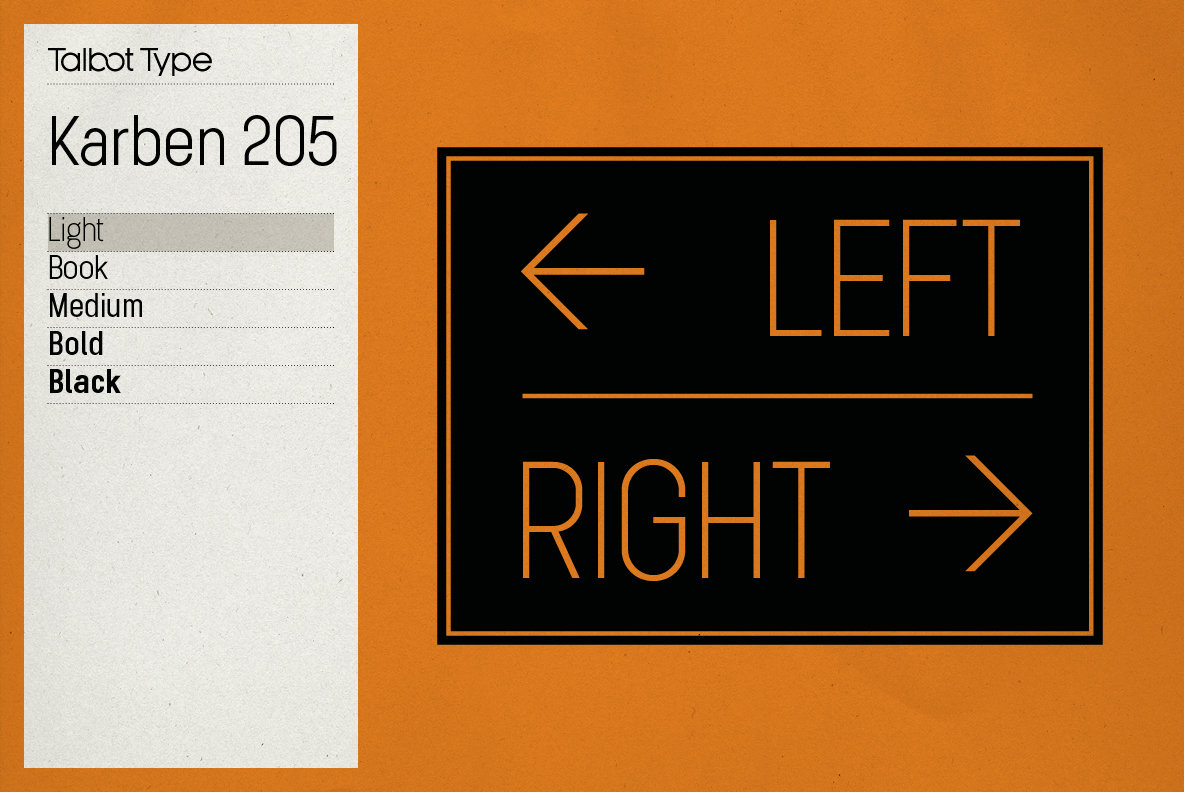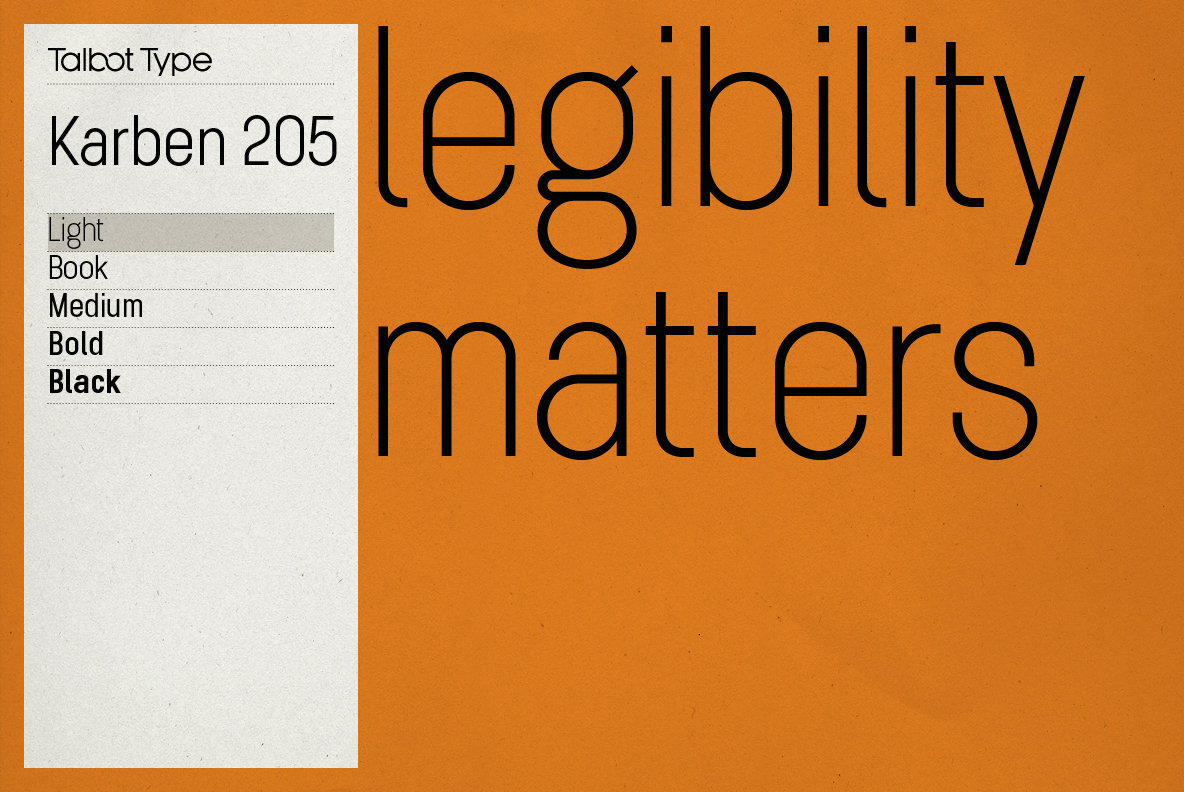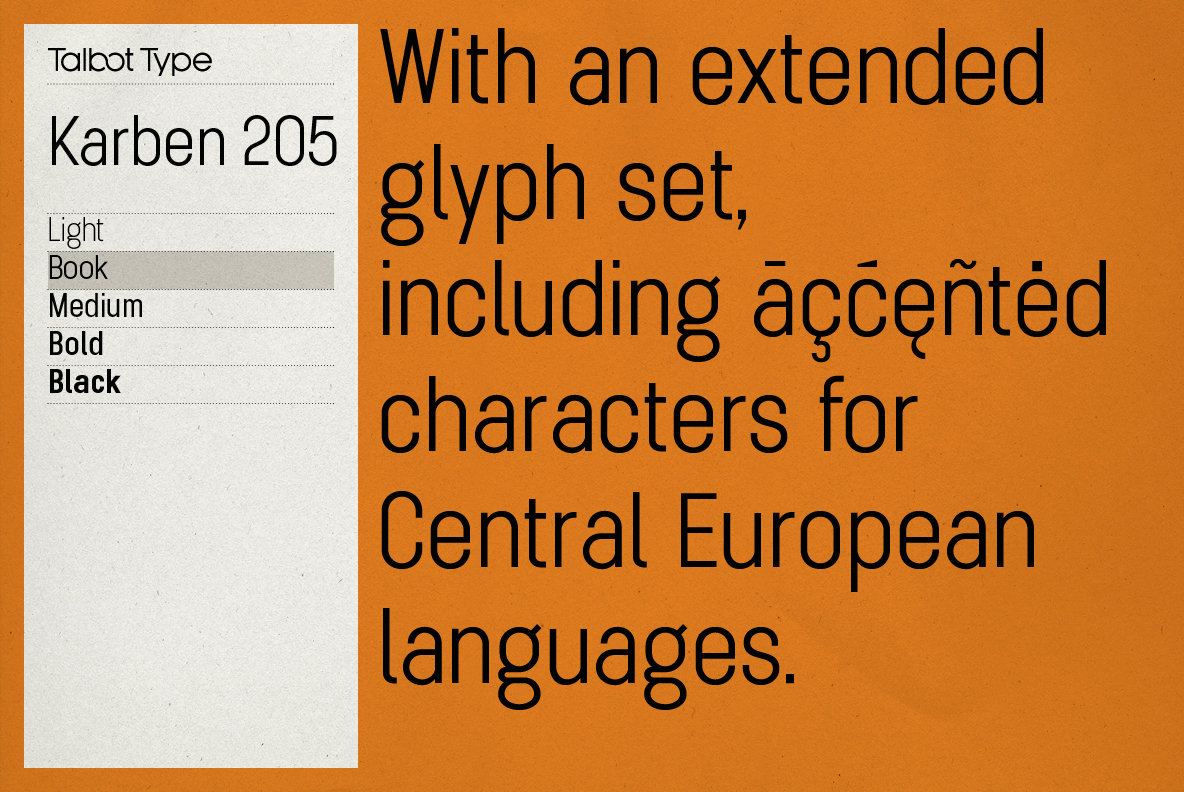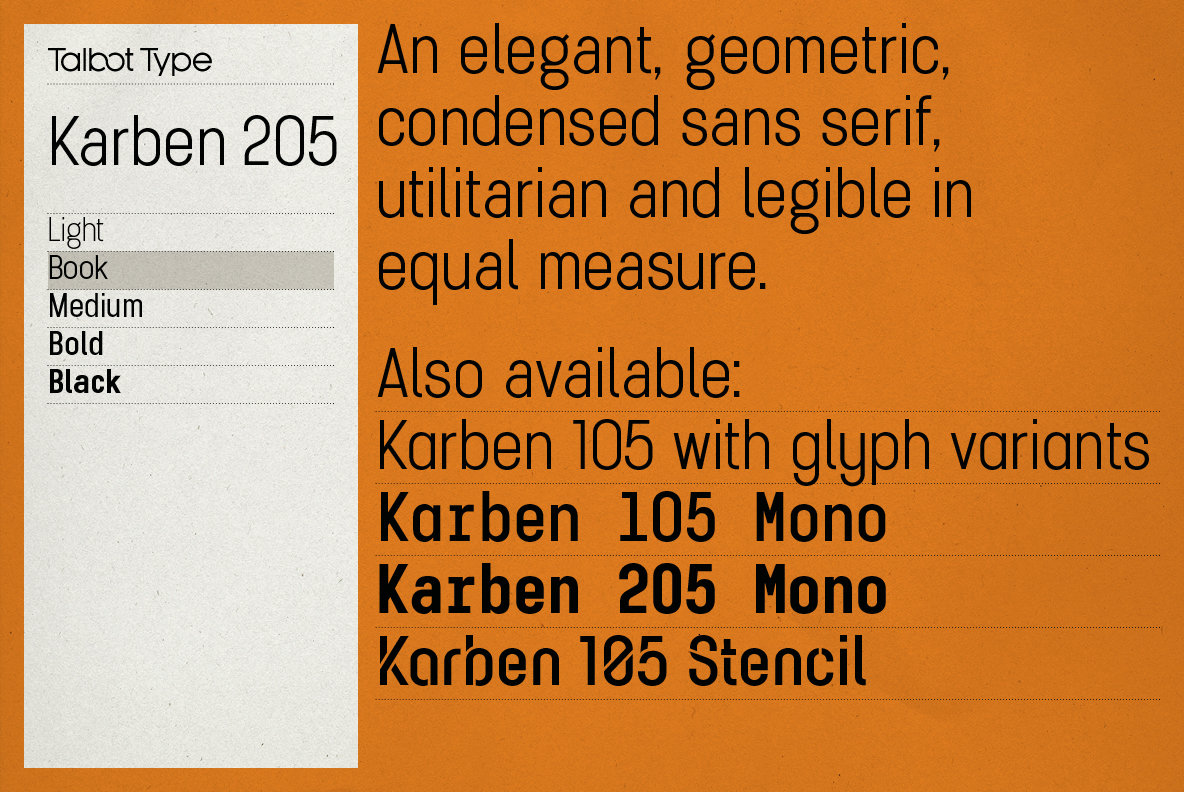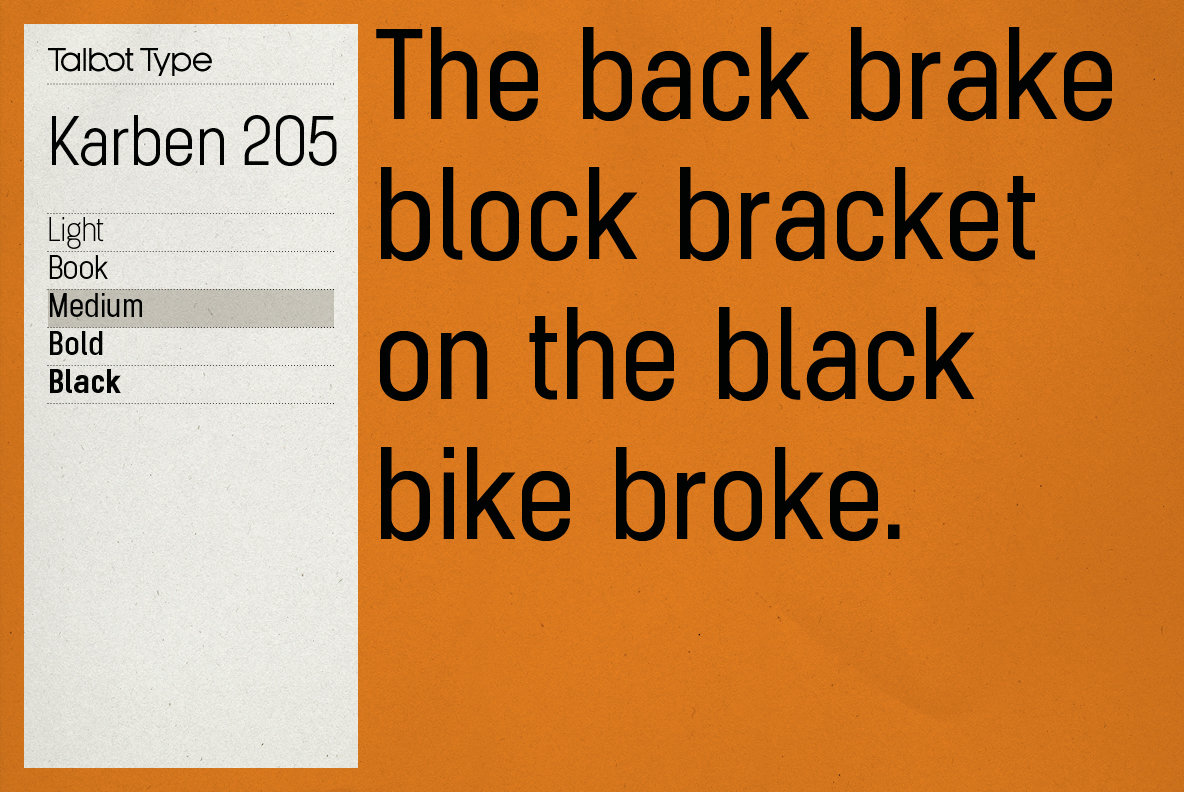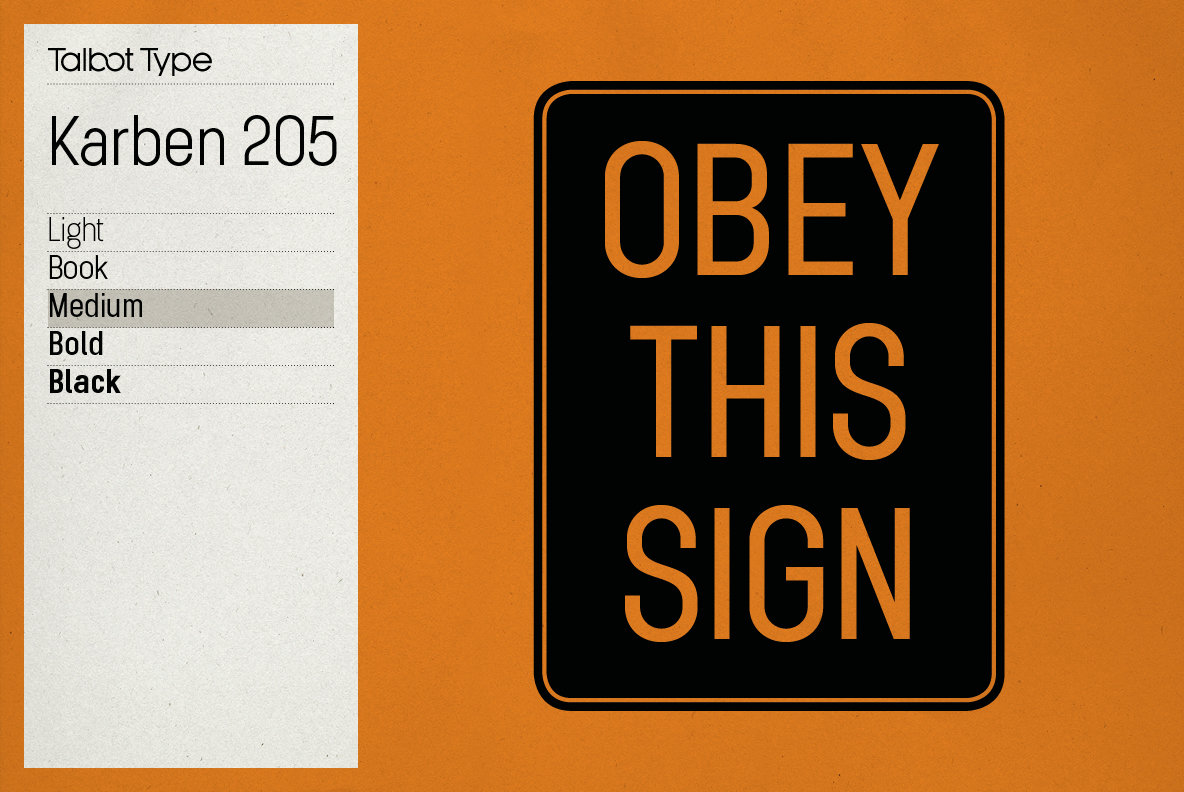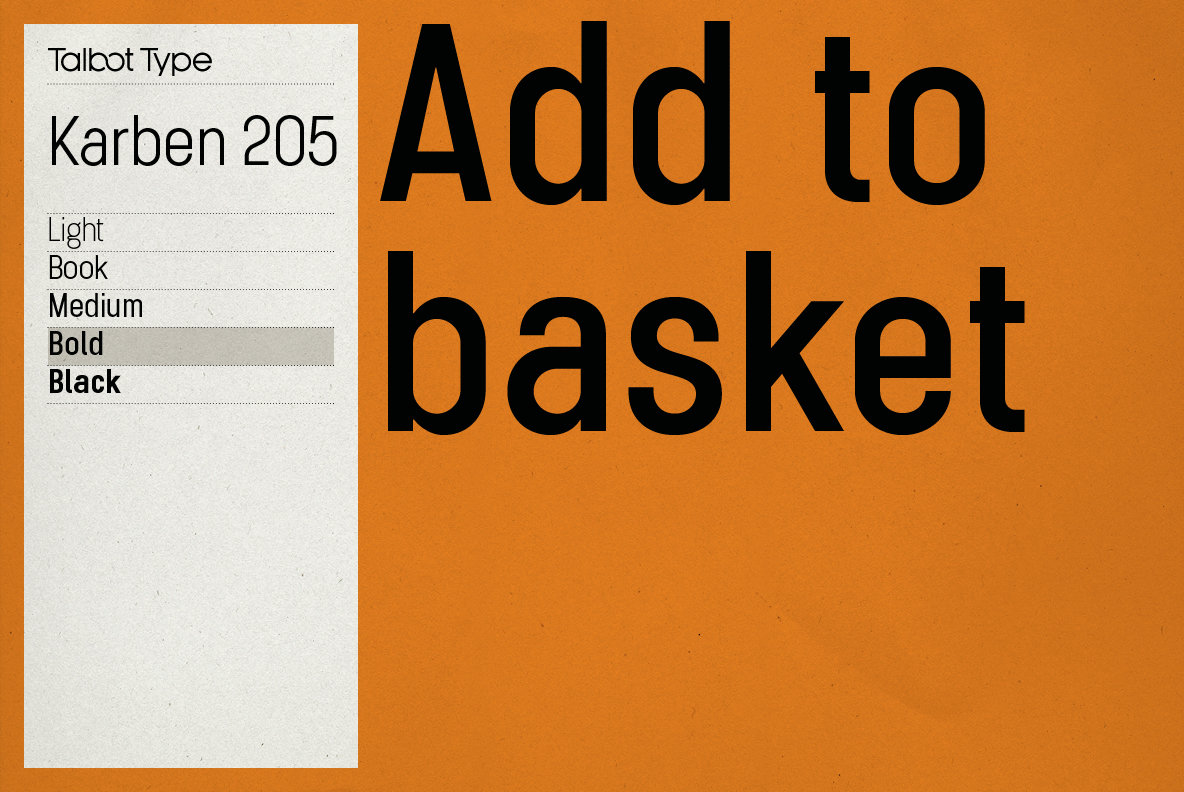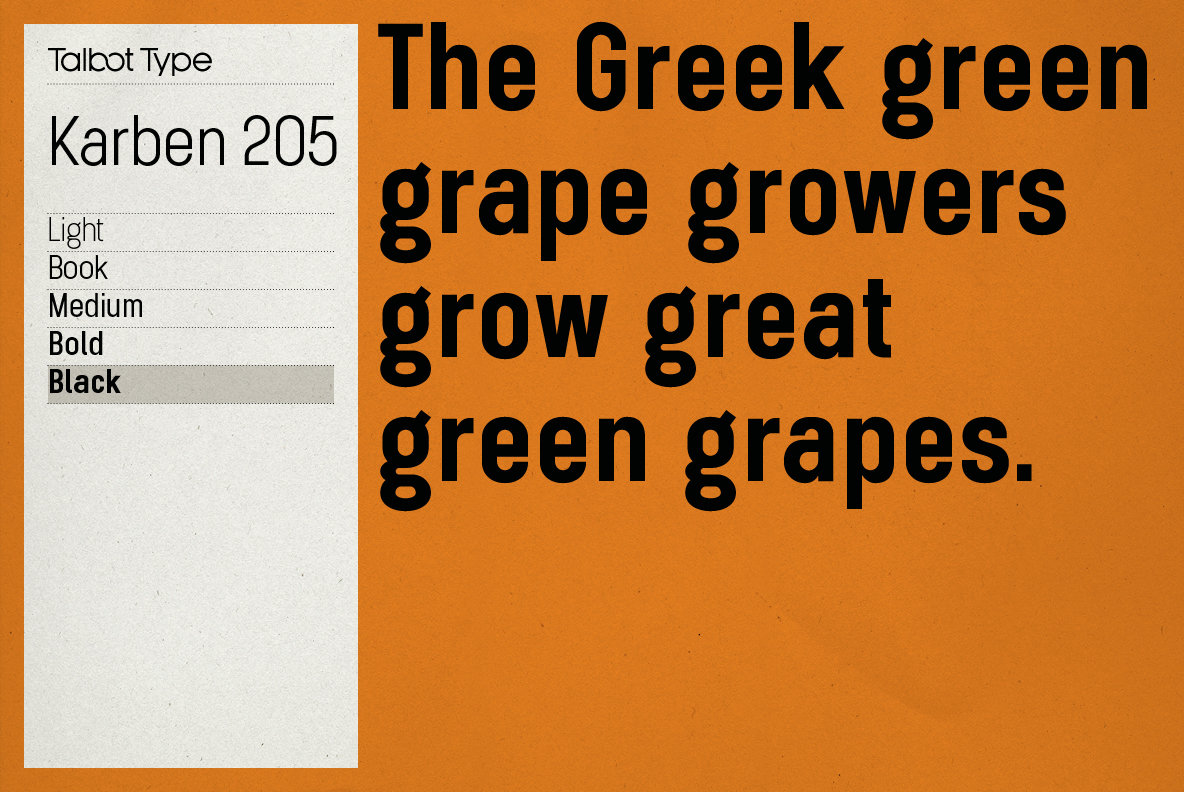
Karben 205 Font
Karben 205 is inspired by the classic, no nonsense DIN, and has a form that follows its highly legible function. Based on a lozenge, it has a clean and pure geometry with even stroke weights. Karben 205 is available in a family of five weights, and is also available with character variations as Karben 105.
There are also monospaced variants of both Karben 105 and Karben 205 and a stencil version. All of the Karben fonts feature an extended character set, including accented characters for Central European languages.